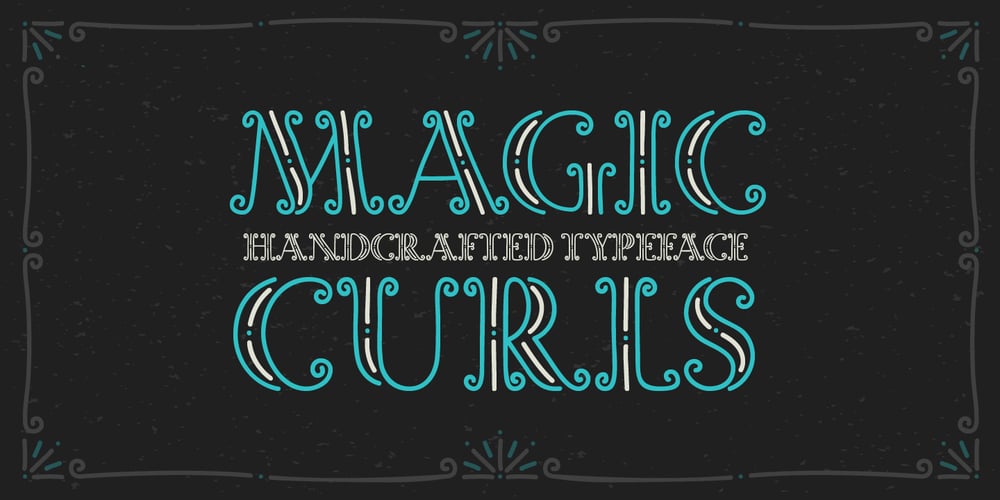
Magic Curls
Magic Curls font
Magic Curls Font Family was designed by Gleb Guralnyk and published by Gleb Guralnyk. Magic Curls contains 4 styles and family package options. Hello! Introducing a decorative display font “Magic Curls”. This handcrafted typeface has a magic look and will suit perfect for some fantasy fairytale design or whatever you like 🙂